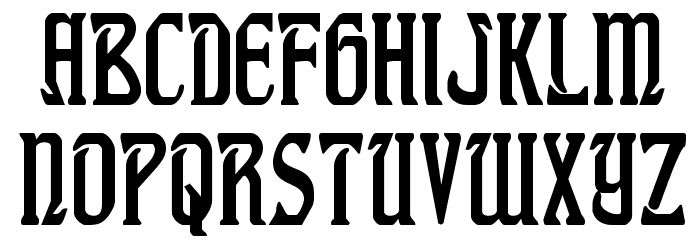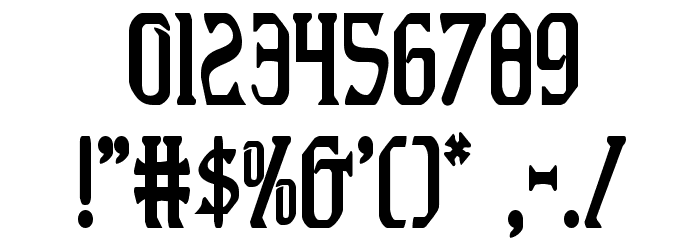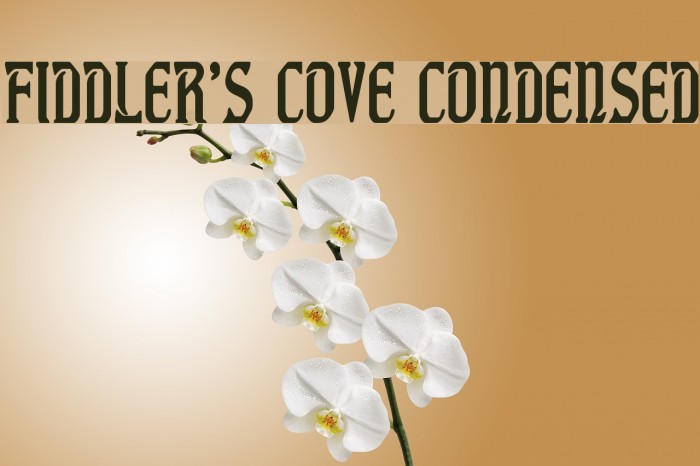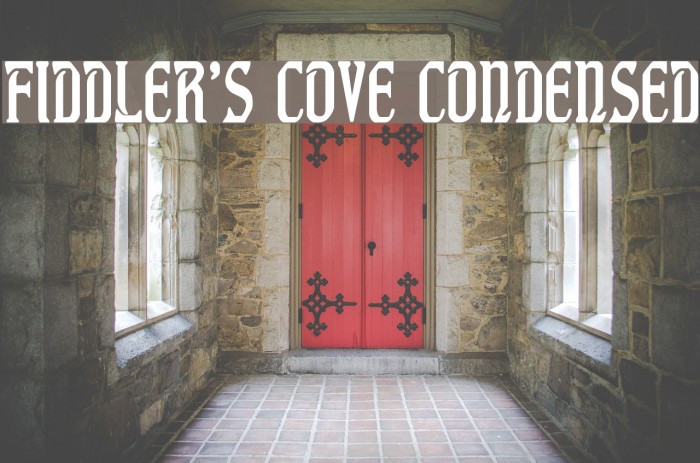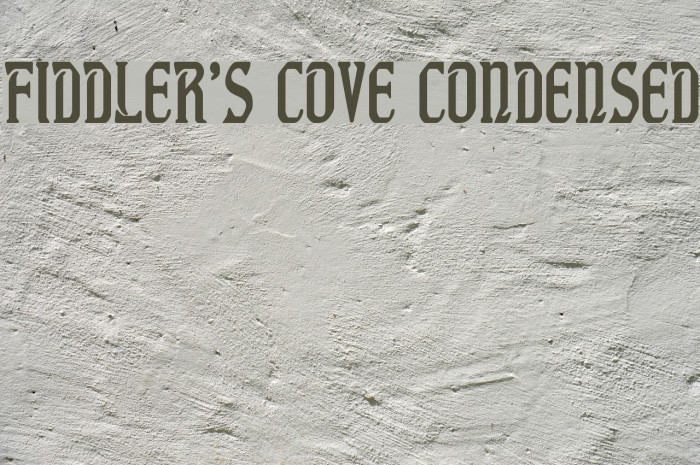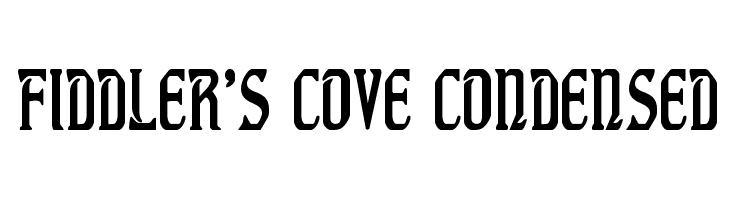
Fiddler's Cove Condensed Font
This font features a bold and condensed style with a distinct blackletter influence, characterized by its sharp, angular lines and strong vertical emphasis. The uppercase letters are particularly striking, with a gothic flair that adds a sense of drama and intensity. The lowercase letters maintain the same boldness, ensuring consistency across text. Numbers and special characters are designed to match the overall aesthetic, making them suitable for a variety of uses. The font's condensed nature allows for efficient use of space, making it ideal for headlines and titles where impact is crucial.
A bold, condensed blackletter-inspired font with sharp, angular lines.
- Font: Fiddler's Cove Condensed
- Proposed Projects: Ideal for projects requiring a dramatic and impactful look, such as posters, album covers, branding for edgy or gothic-themed products, and event invitations.